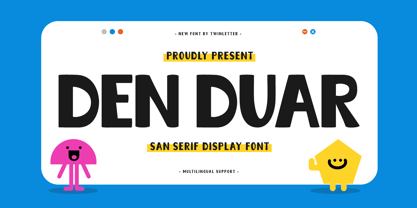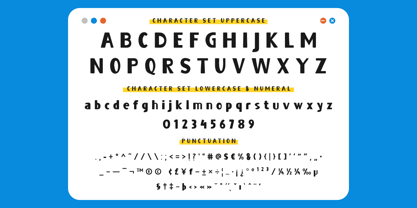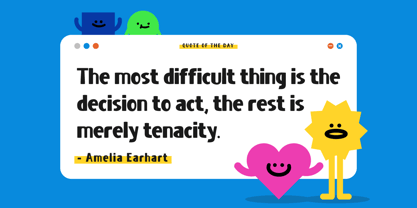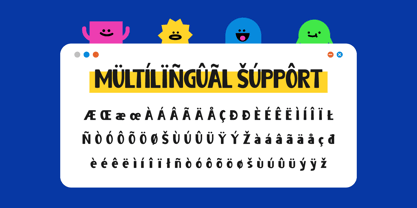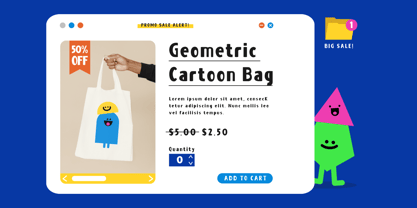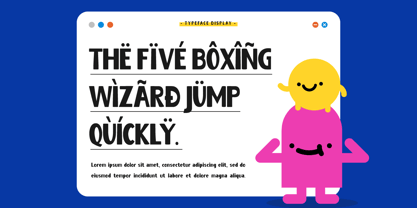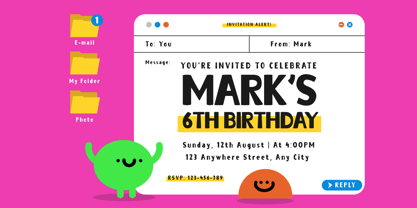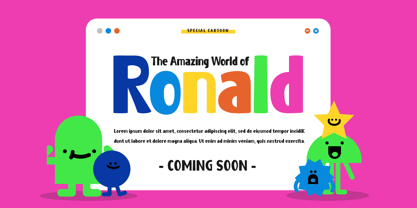
Den Duar
by Trabas Kriya
The Den Duar Font Family was designed by Murozakul Akhsan and published by Trabas Kriya. Den Duar contains 1 styles.
Den Duar is a handwritten font that captures the beauty of natural handwriting. Its flowing, organic characters are perfect for designs that require a personal, handmade feel. With Den Duar, your designs will have a natural, authentic look.
- Fonts include Multilingual: Support for 85 languages.
Designers: Murozakul Akhsan
Publisher: Trabas Kriya
Foundry: Trabas Kriya